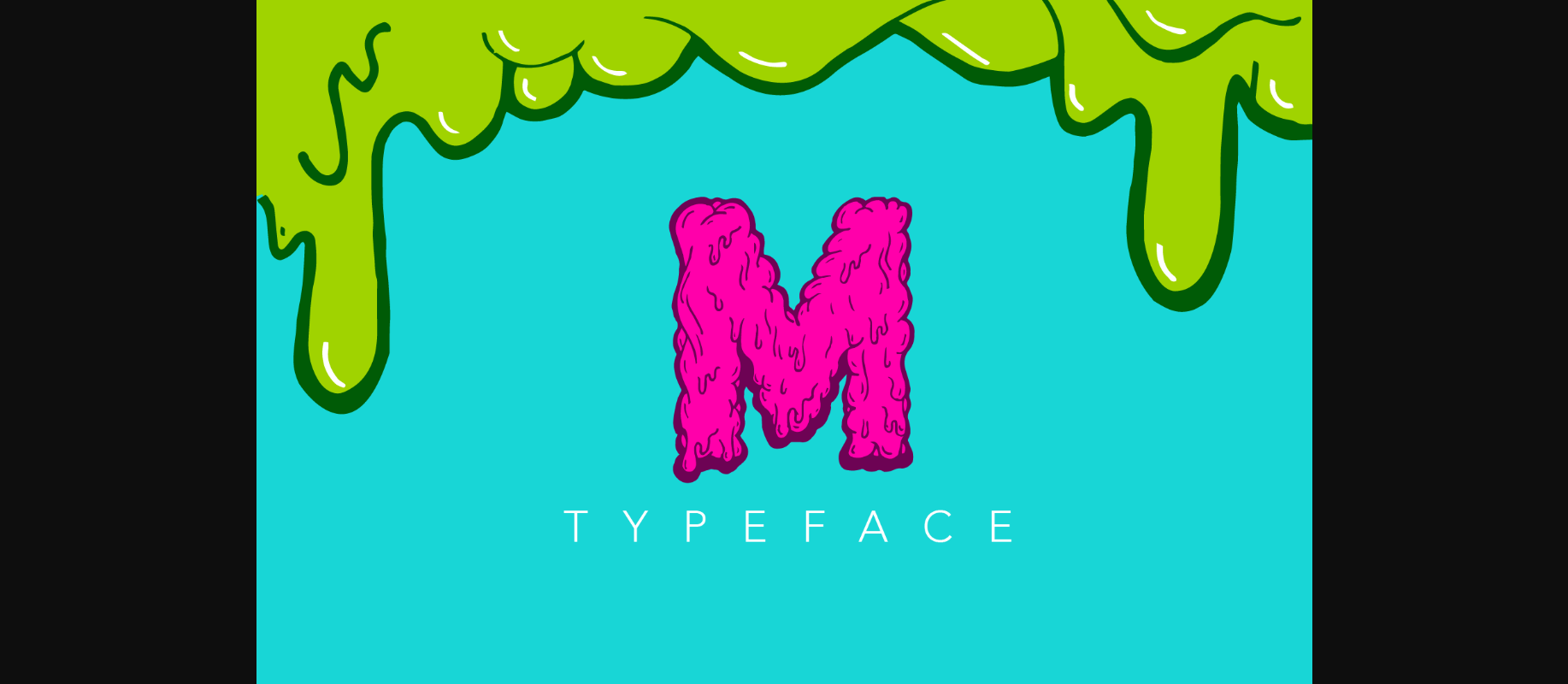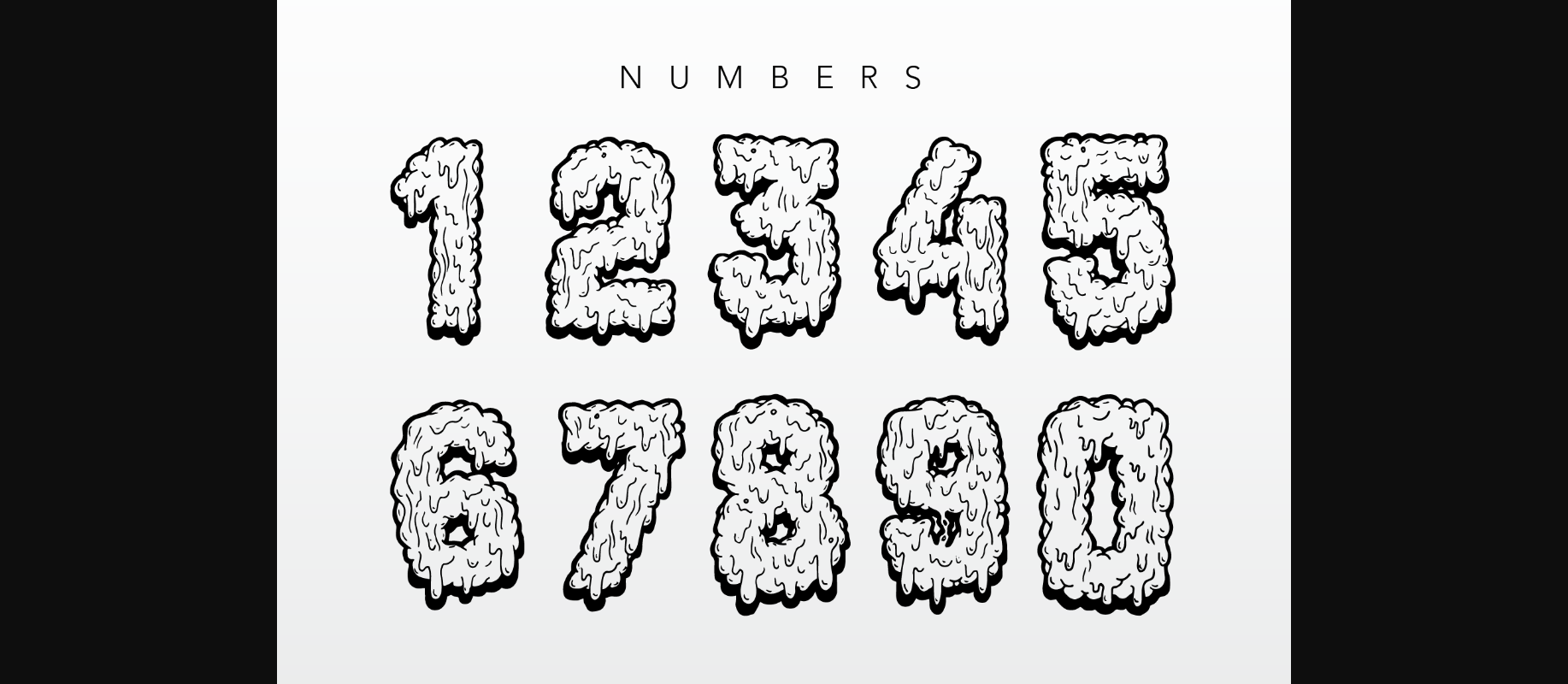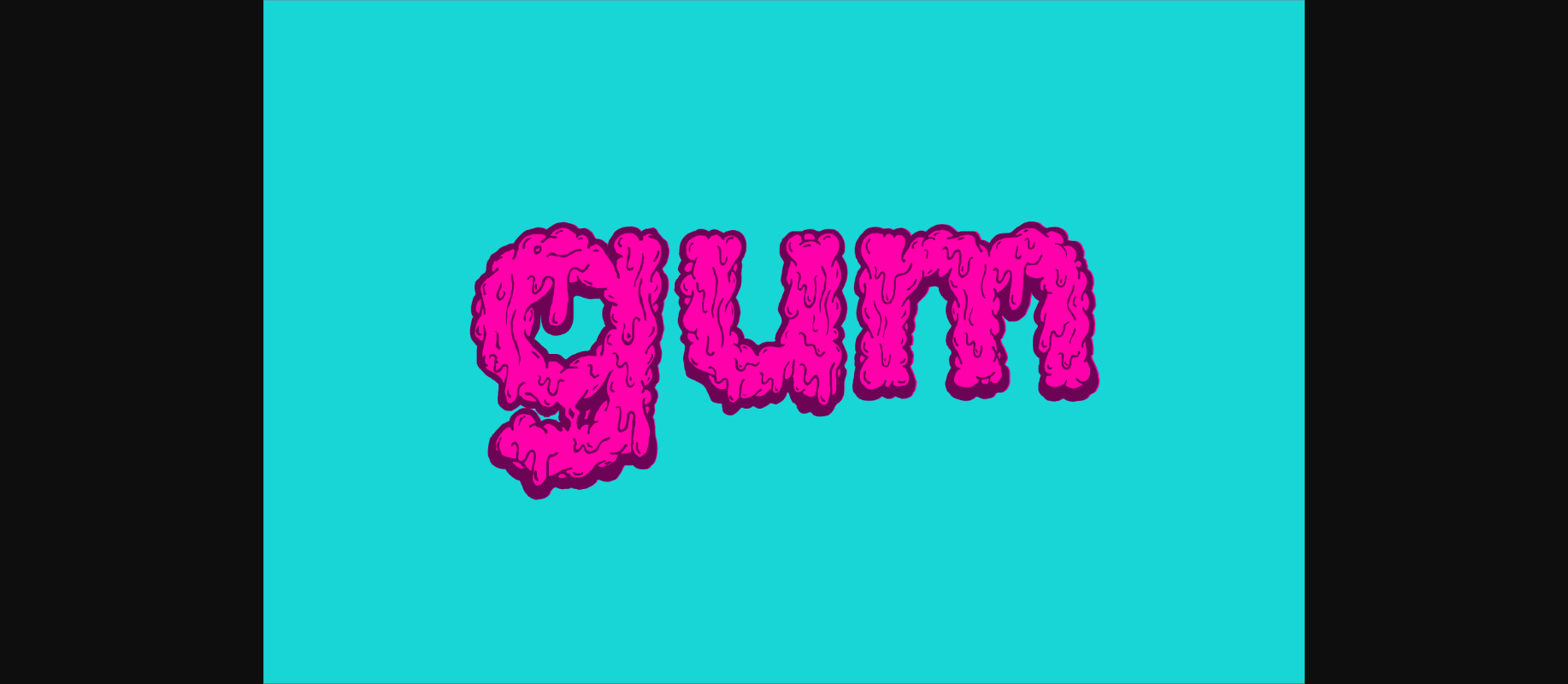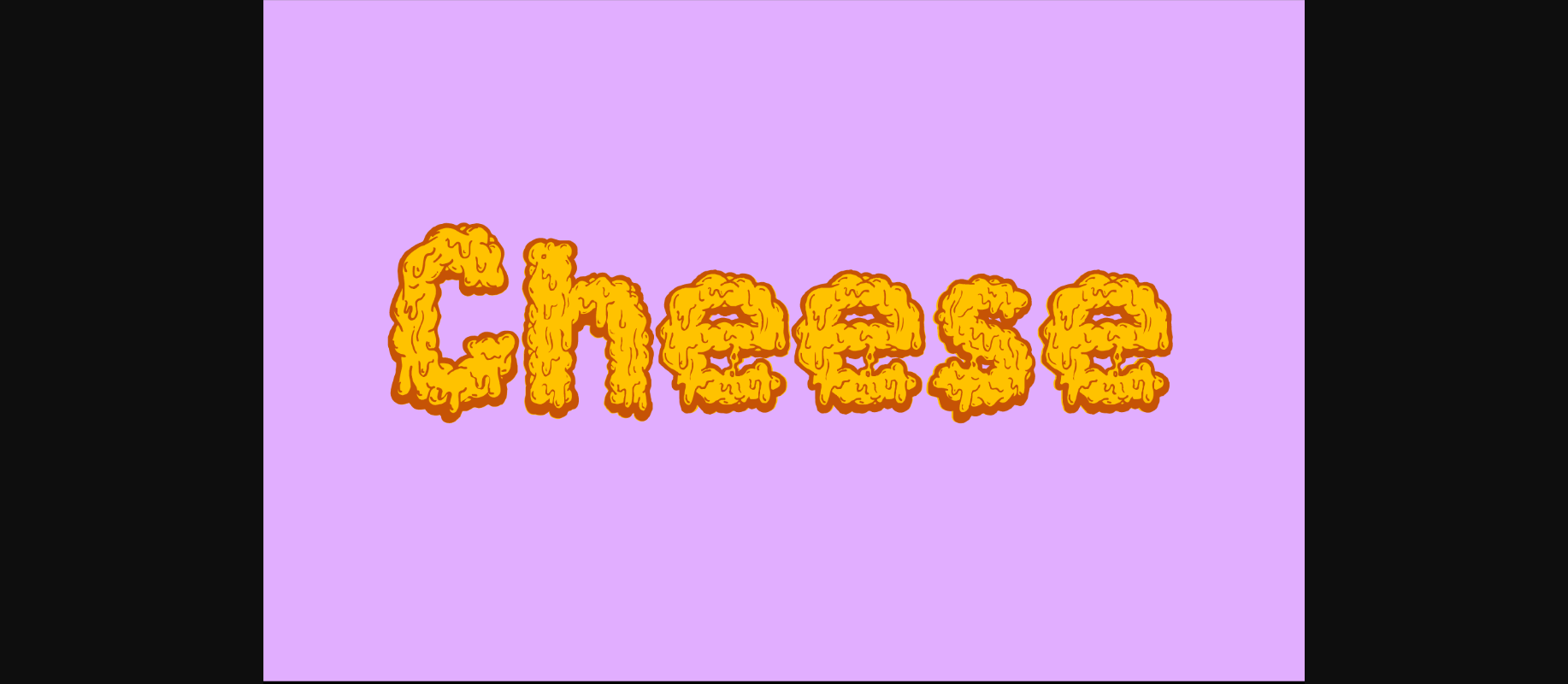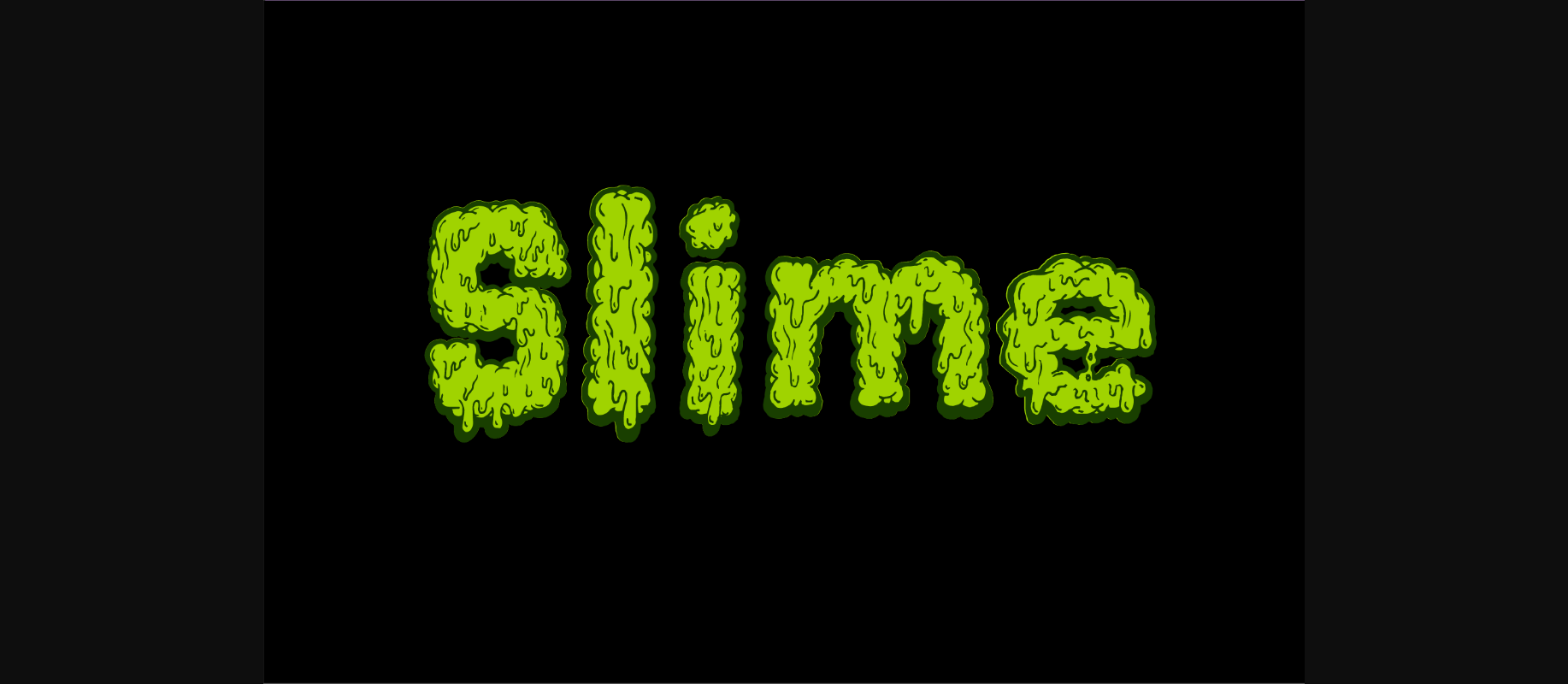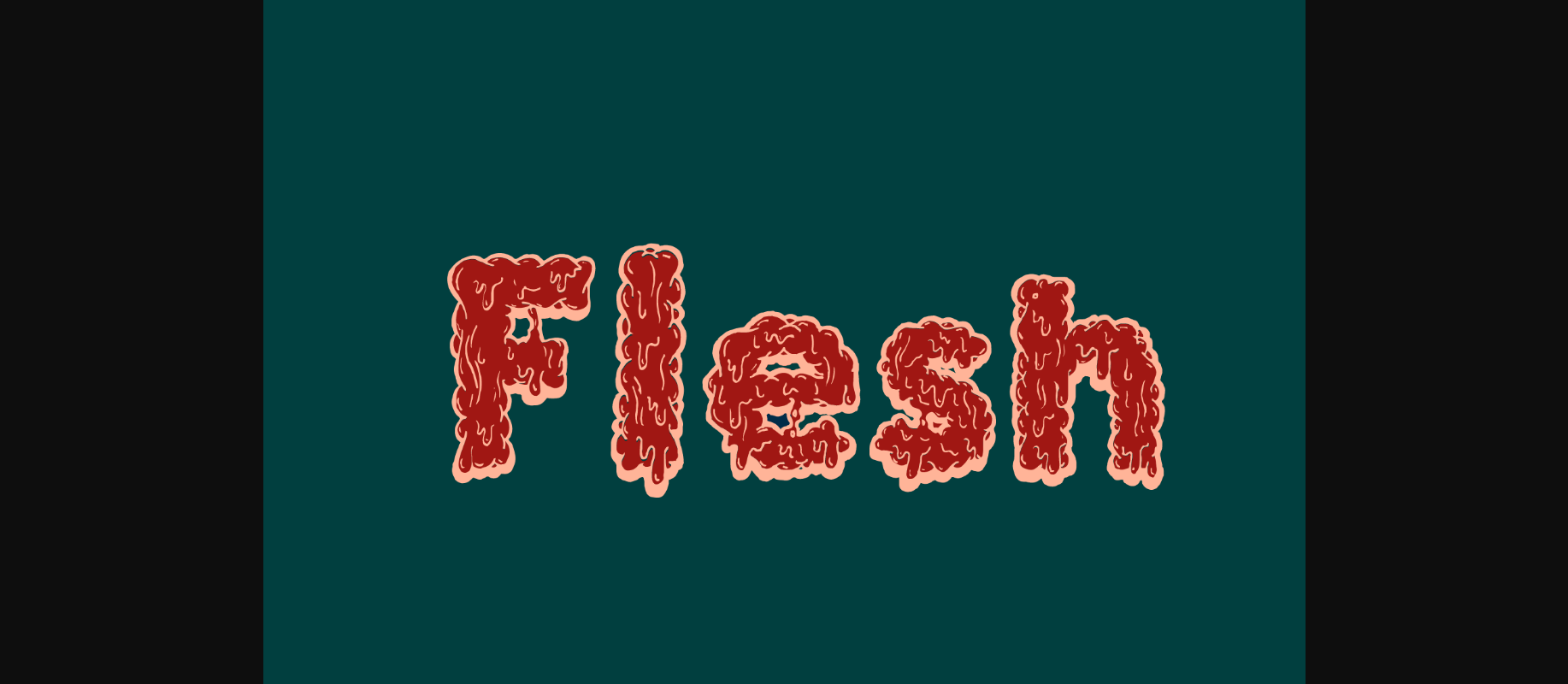
Monstrocity Font
About Monstrocity Font
Monstrocity is a decorative font with punctuation and numbers included. It is versatile and easy to use, best suited for headlines and other large formats because of its ornamented nature. This font that can be used in different ways: to make design look fluffy and stylish or to give a grunge and grotesque style. So go crazy with it and enjoy creating!